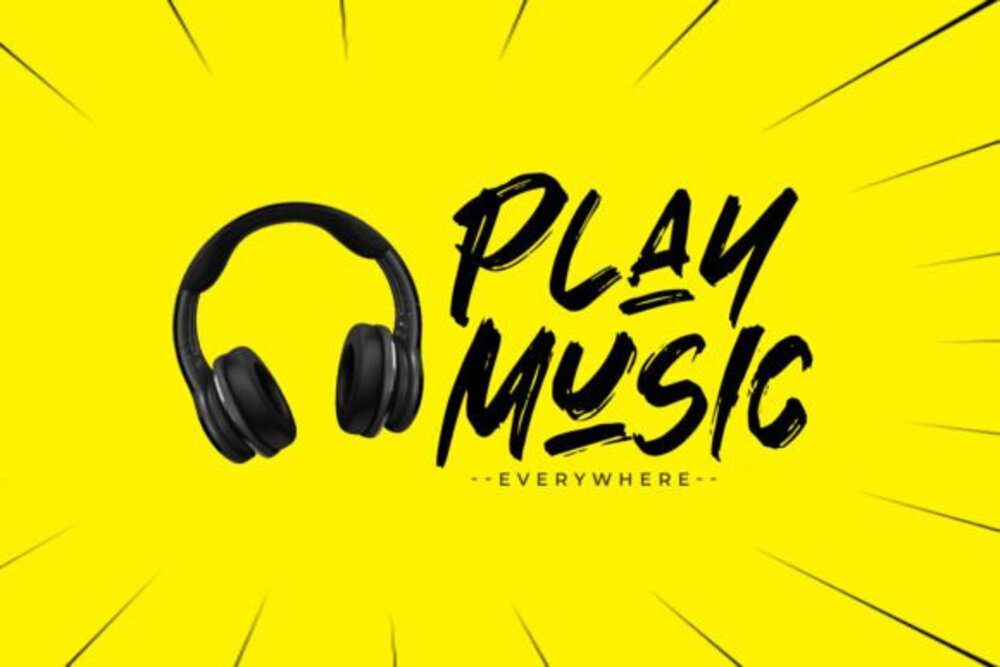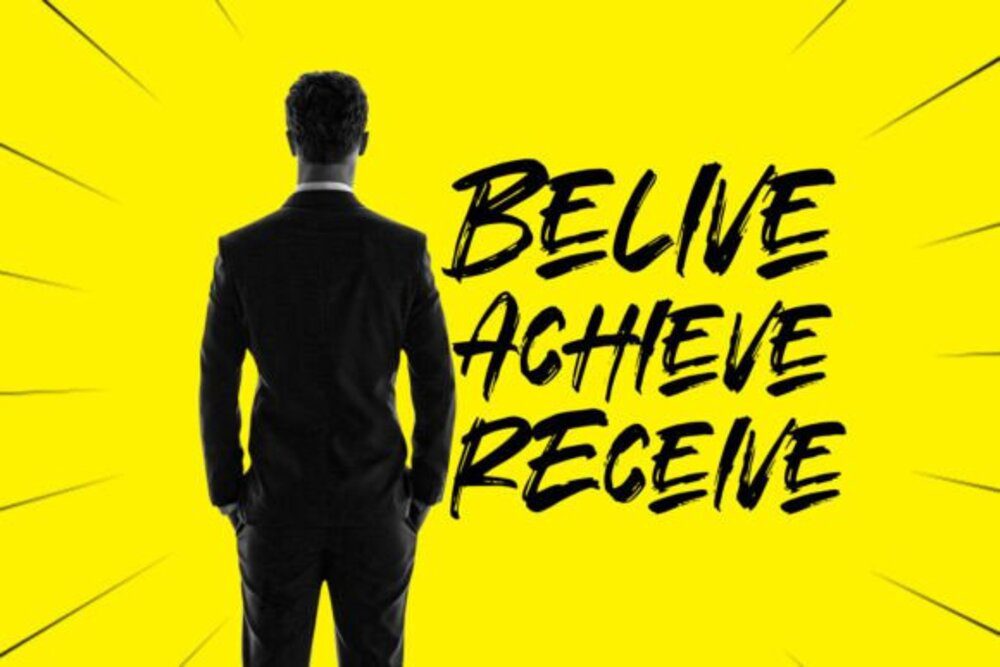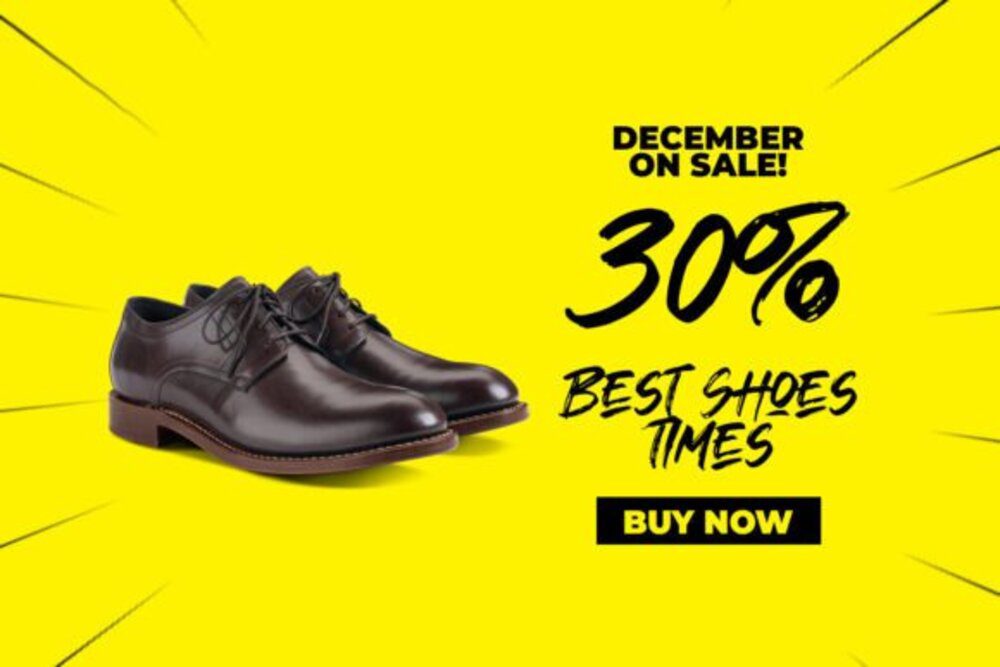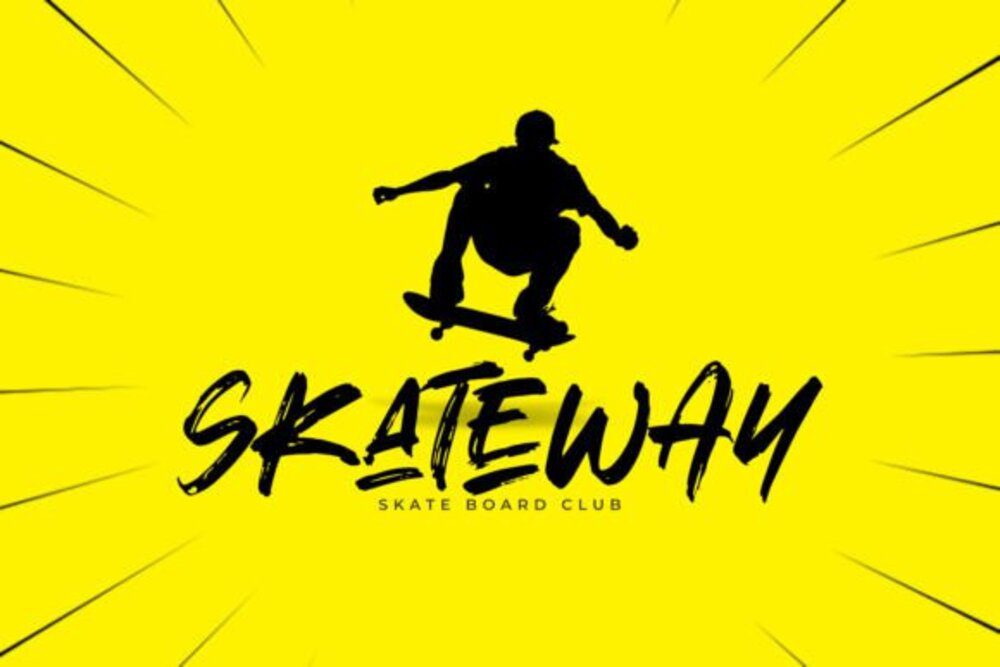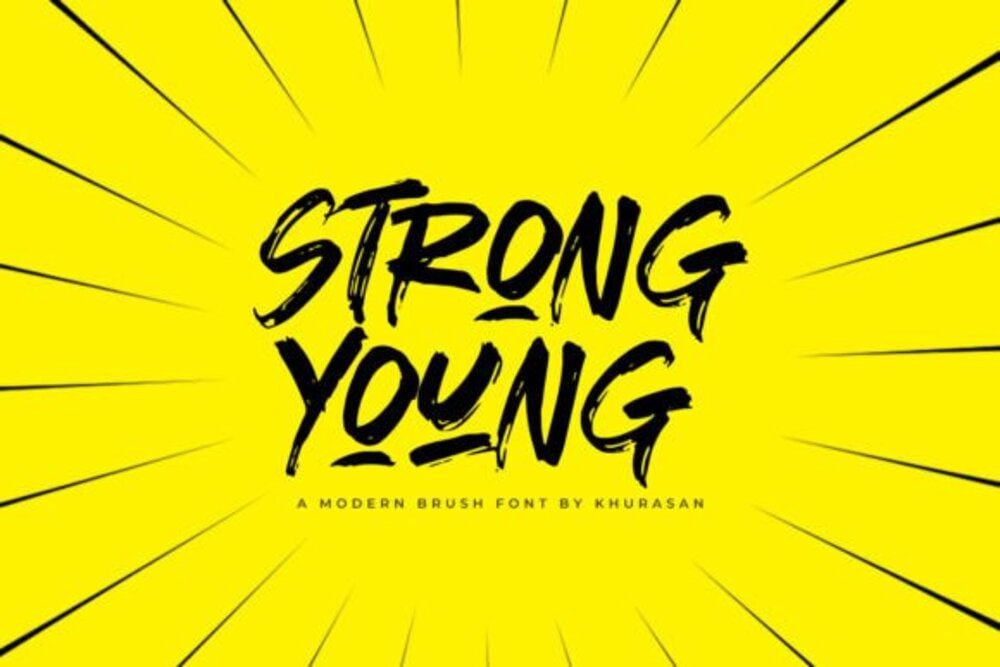
Strong Young Font
Strong Young Font is a dynamic and energetic typeface that exudes confidence and vitality. With bold strokes, sharp edges, and a modern flair, it’s designed to make a powerful statement. Perfect for sports branding, motivational posters, or youthful designs, this font captures the spirit of ambition and strength, bringing a fresh and inspiring touch to any project.